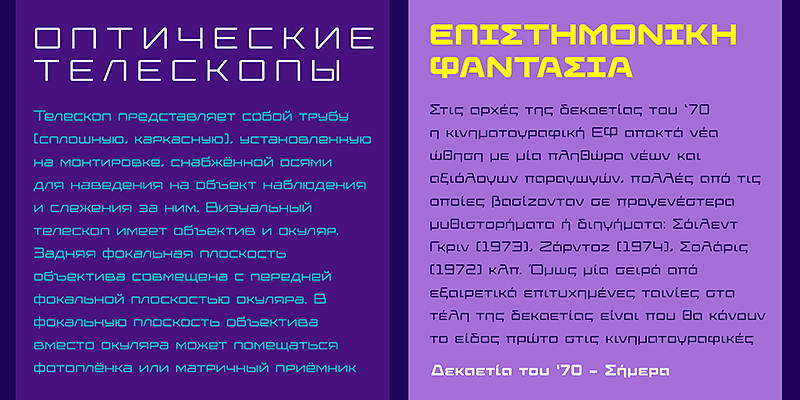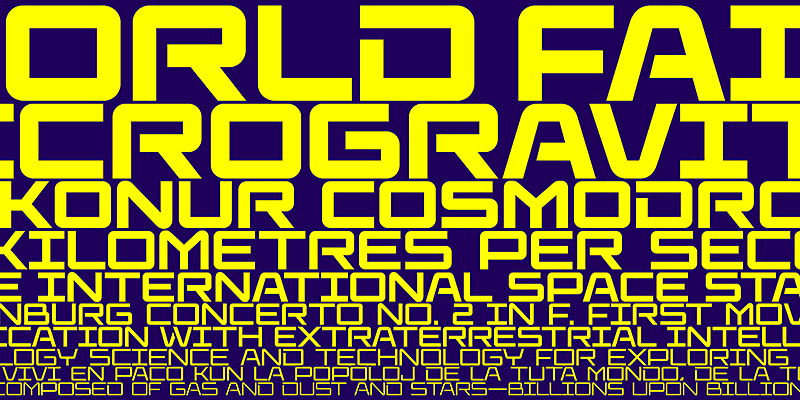
Elevon is unapologetically headed to space, and possibly the future. Its five conveniently named weights offer diversity and contrast, ready to give the right tone of voice to your moon mission.